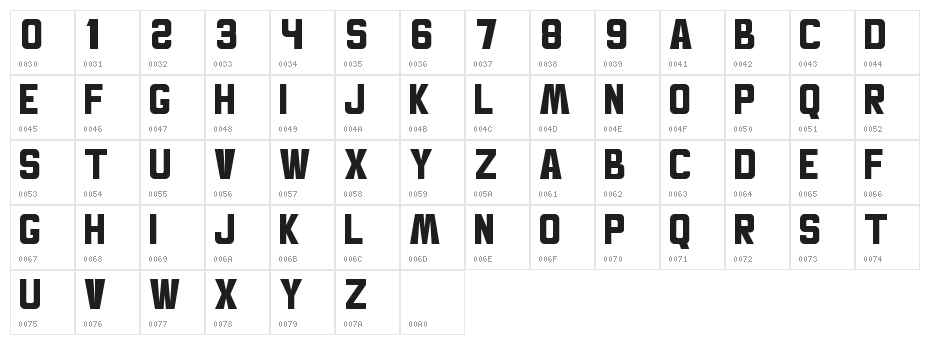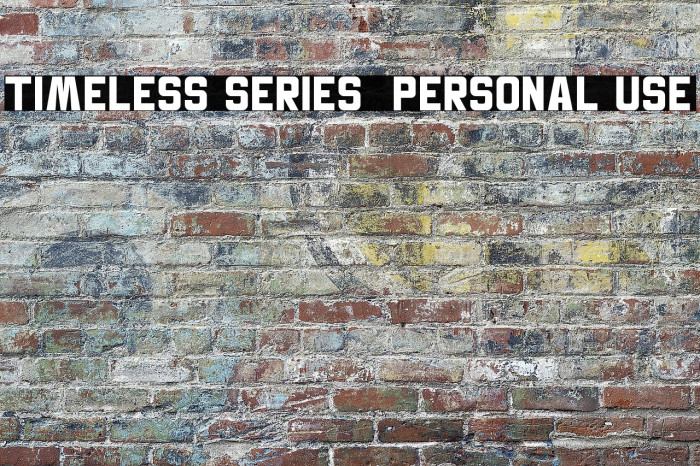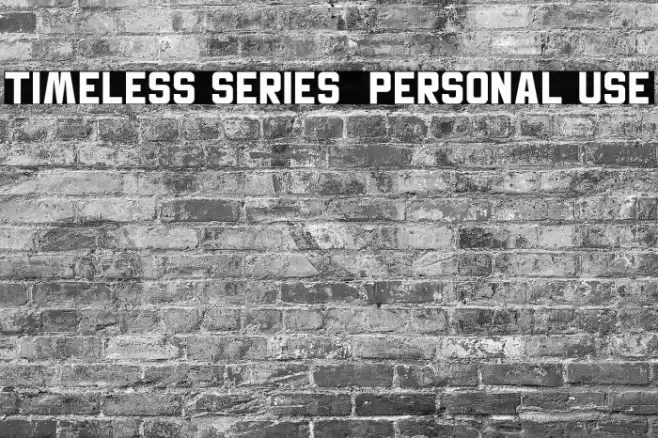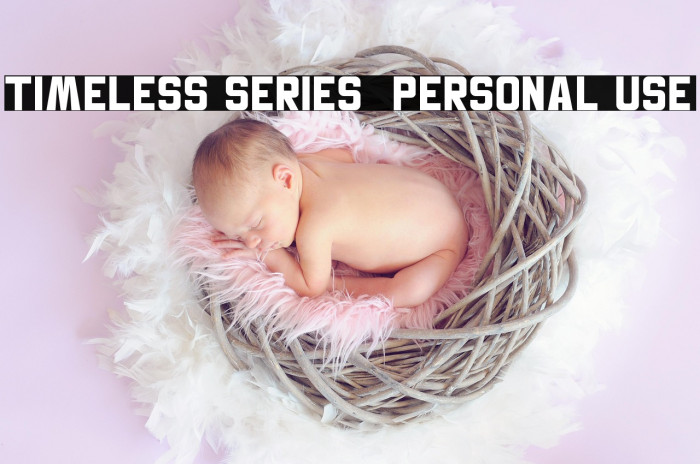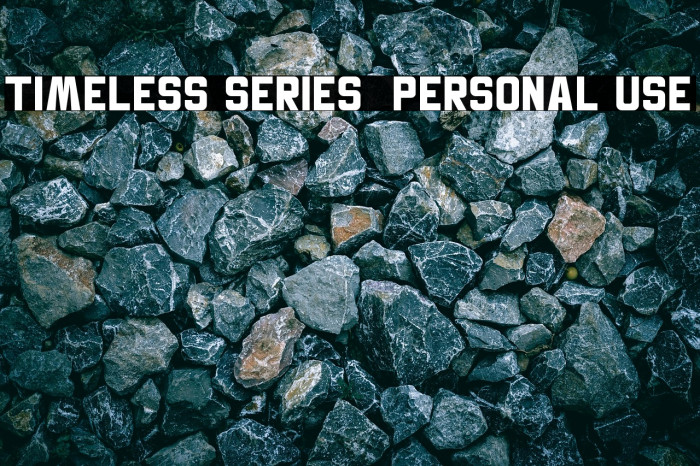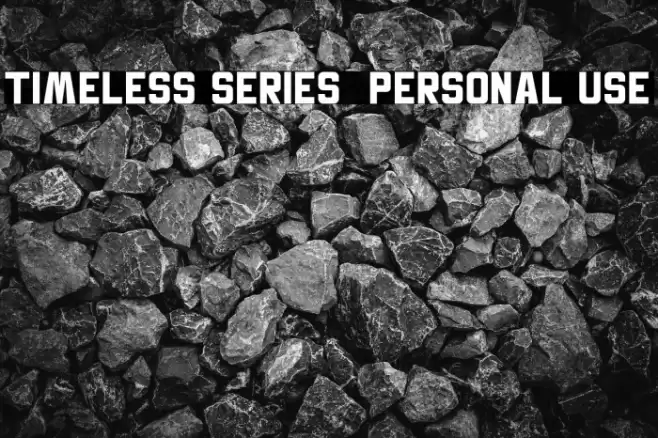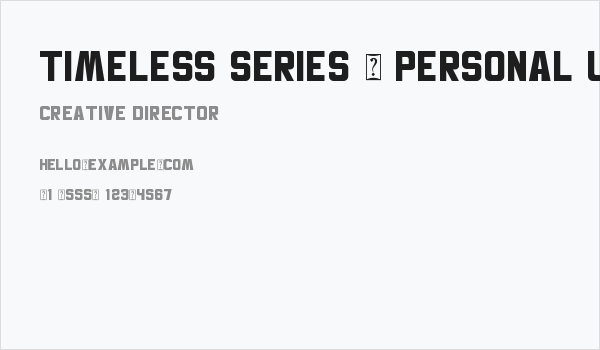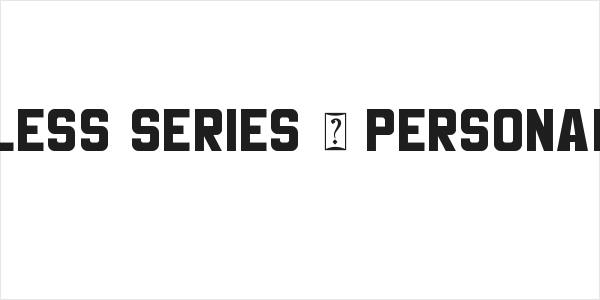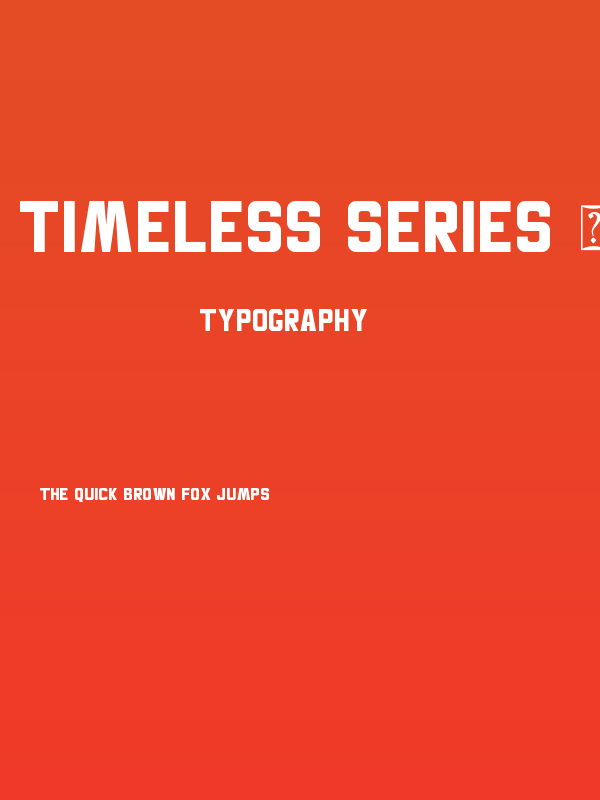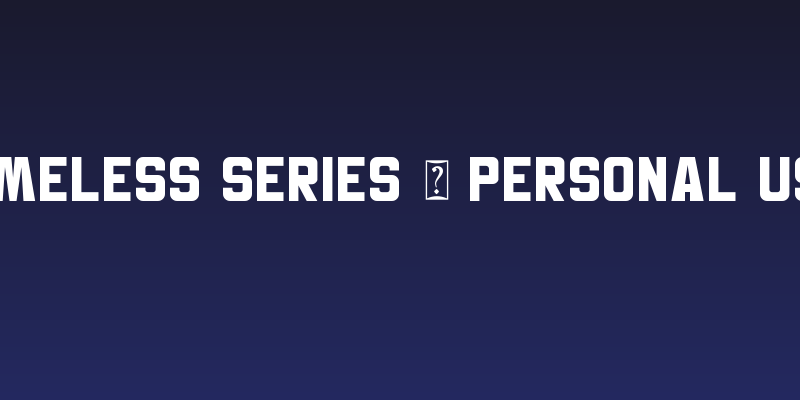
Timeless Series - Personal Use Font
Timeless Series - Personal Use Description
This font exhibits a bold and impactful style with strong geometric shapes and uniform stroke widths. The uppercase letters are particularly striking, with a blocky and robust appearance that commands attention. The numerals are equally bold, maintaining the same strong presence as the letters. The overall design is clean and modern, making it suitable for a variety of applications where clarity and emphasis are desired. The font's structure is consistent, with each character maintaining a similar height and width, contributing to a cohesive and balanced look.
| Proposed Projects | Ideal for headlines, posters, branding, and any project requiring a strong visual impact. |